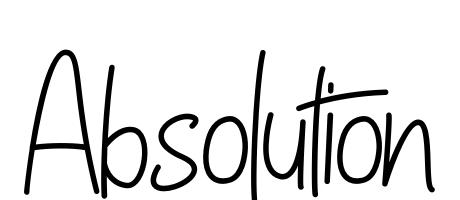
Absolution
By Andri Ardianto + Madatype Studio
Absolution: A handwritten script, elegant yet slightly imperfect. Its gentle curves and flowing lines whisper secrets, hinting at forgiveness and a quiet release. The slightly uneven strokes add a touch of human warmth, making it perfect for invitations, personal notes, or designs seeking a touch of soulful grace.